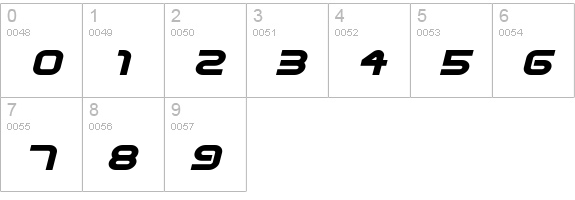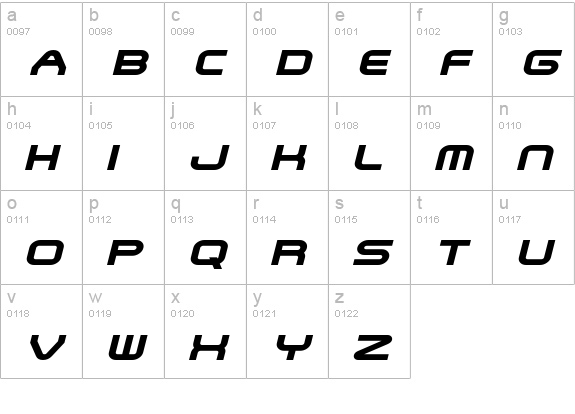
ShuttleExtended Italic Font Details
ShuttleExtended Italic is a distinctive, italic variant in the ShuttleExtended typeface family \xE2\x80\x94 well suited to design and typography projects.
Introducing ShuttleExtended Italic font, a stunning typeface that combines elegance and fluidity to elevate any design project. This font is the perfect choice for those seeking a touch of sophistication and modernity. With its slanted and stylish letterforms, ShuttleExtended Italic exudes a sense of movement and dynamism, making it ideal for conveying a sense of energy and forward-thinking attitude. Its subtle curves and unique design elements give it a contemporary and refined look that is sure to captivate the audience. Not only does ShuttleExtended Italic font offer a visually pleasing aesthetic, but it also guarantees exceptional legibility and readability. Each character is meticulously crafted, ensuring that every word stands out with clarity and precision. Whether used for headlines, titles, or body text, this font maintains its readability across various sizes and mediums. One of the best aspects of ShuttleExtended Italic font is that it is freely available to download at FontsMarket.com. This means that designers and creatives can access this extraordinary font without any cost, making it a valuable addition to any font collection. With its versatility and accessibility, ShuttleExtended Italic font empowers users to bring their visions to life with ease. So, whether you are working on a branding project, a website design, or any other creative endeavor, ShuttleExtended Italic font is the perfect companion to elevate your work. Download it for free from FontsMarket.com and unleash its endless potential in your designs.